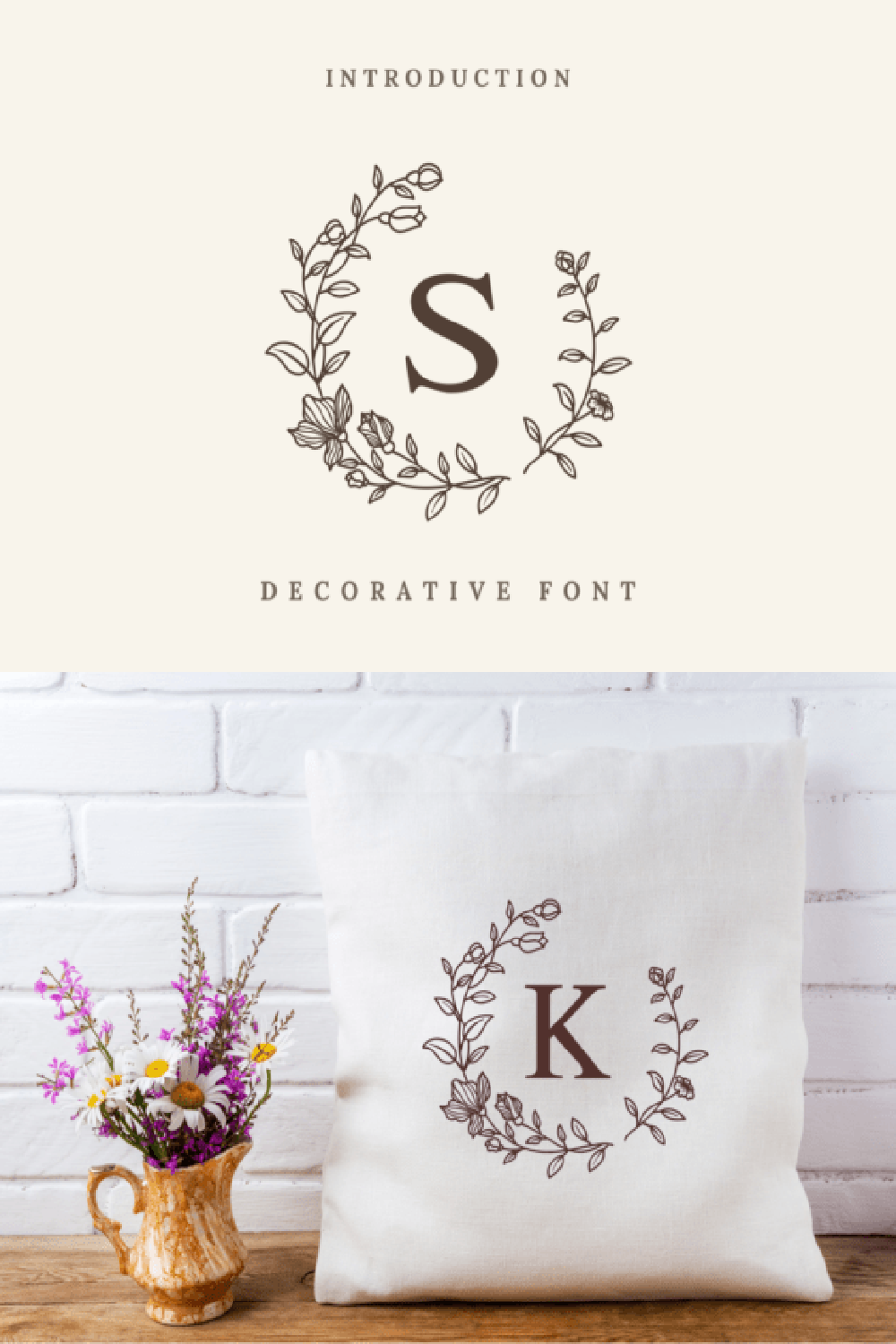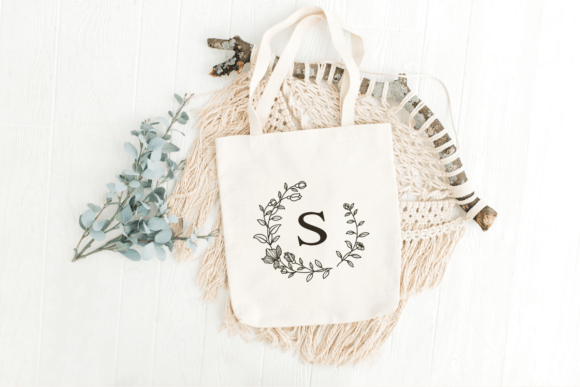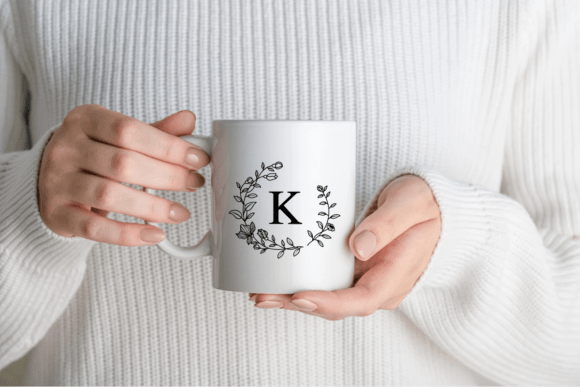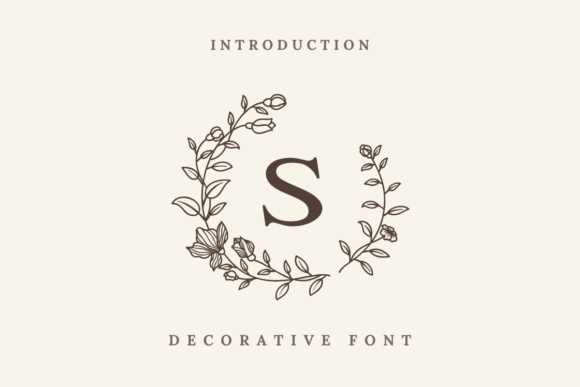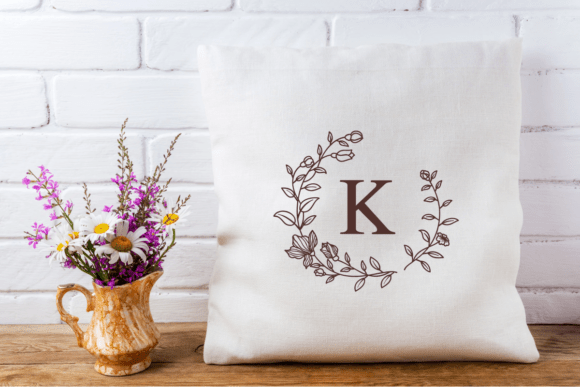
Springtime Flowers Font
About the Springtime Flowers Font
Meet Springtime Flowers Font, a stunning font that brings a touch of elegance and professionalism to any design. Springtime Flowers is a decorative font. You can use it for taking notes, writing a diary, or making greeting cards. However, you can still use it for other designs, such as banners, content, mugs, cards, shirts, stationery, social media posts, and more!